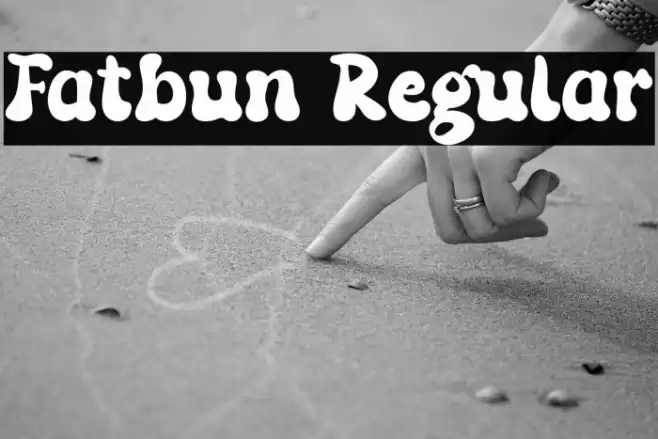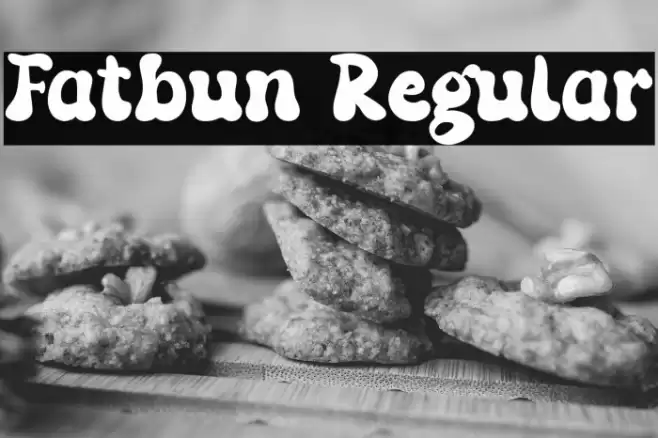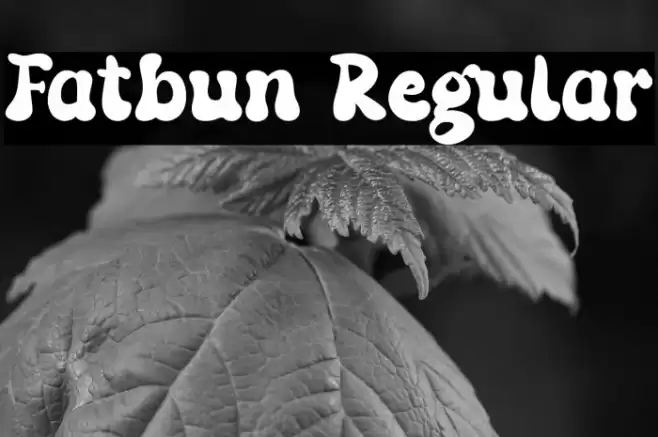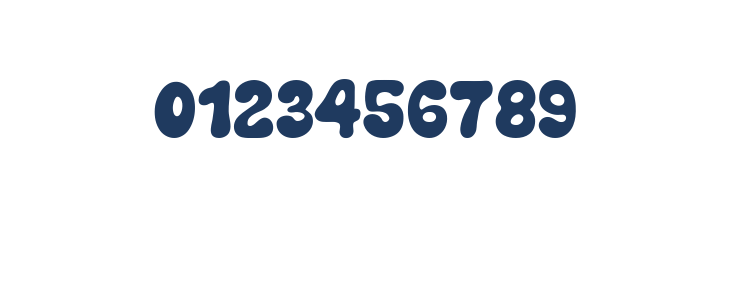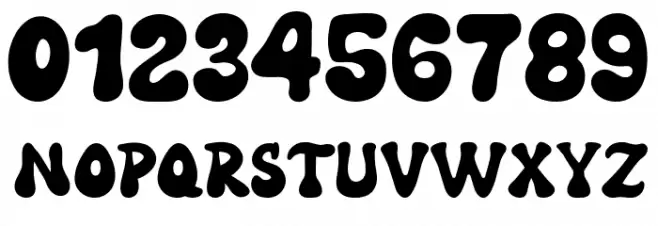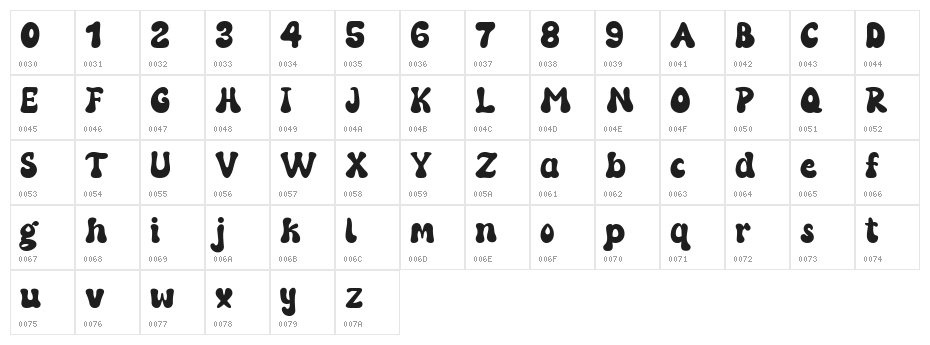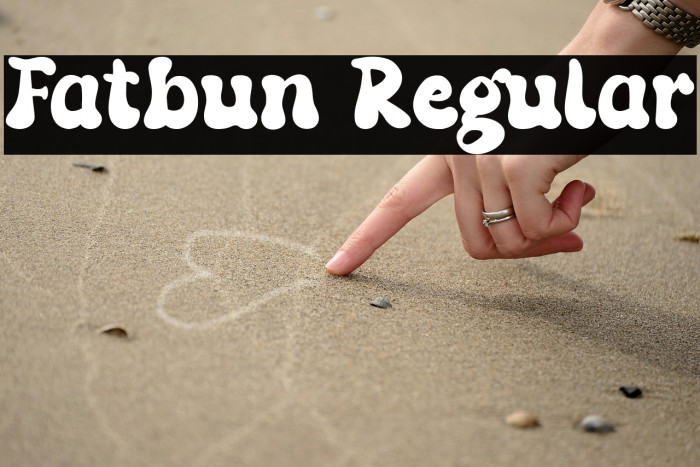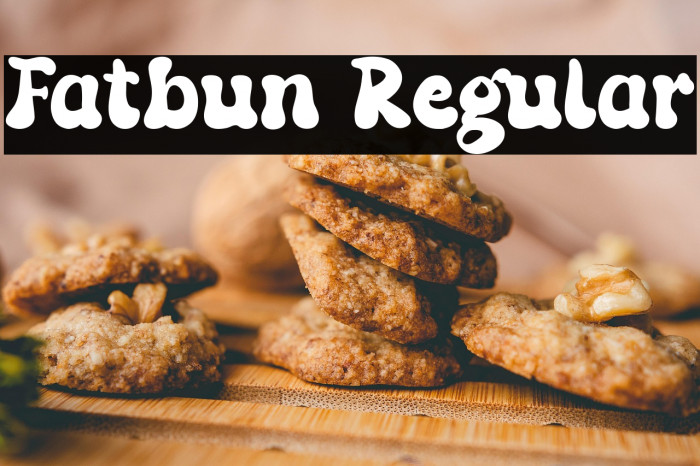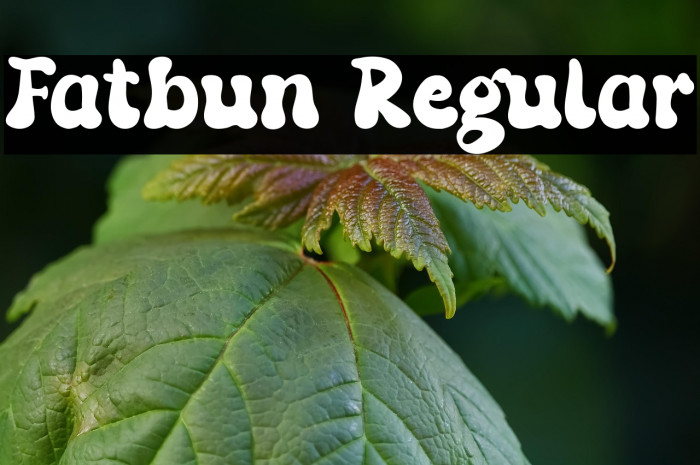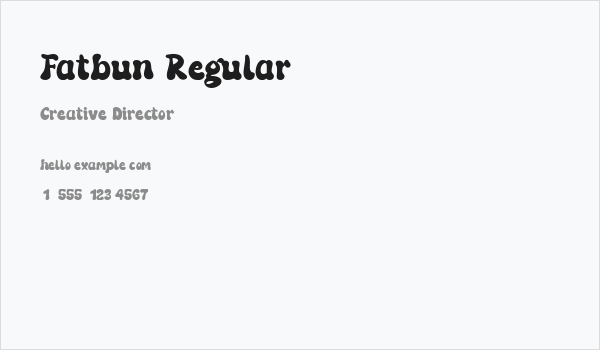
Fatbun Regular Font
Fatbun Regular Description
This font features a playful and bold style with a bubbly and rounded appearance. Each character is designed with thick strokes and a whimsical flair, making it stand out with a fun and friendly vibe. The letters have a consistent weight throughout, creating a uniform look that is both eye-catching and approachable. The rounded edges and exaggerated curves give it a soft and inviting feel, perfect for projects that require a touch of humor or creativity. Its unique design makes it suitable for a variety of uses, from children's books to playful branding.
A playful, bold font with rounded, bubbly characters from Uncategorized fonts.
- Proposed Projects: Ideal for children's books, playful branding, party invitations, and creative posters.
- Overall Style: Playful